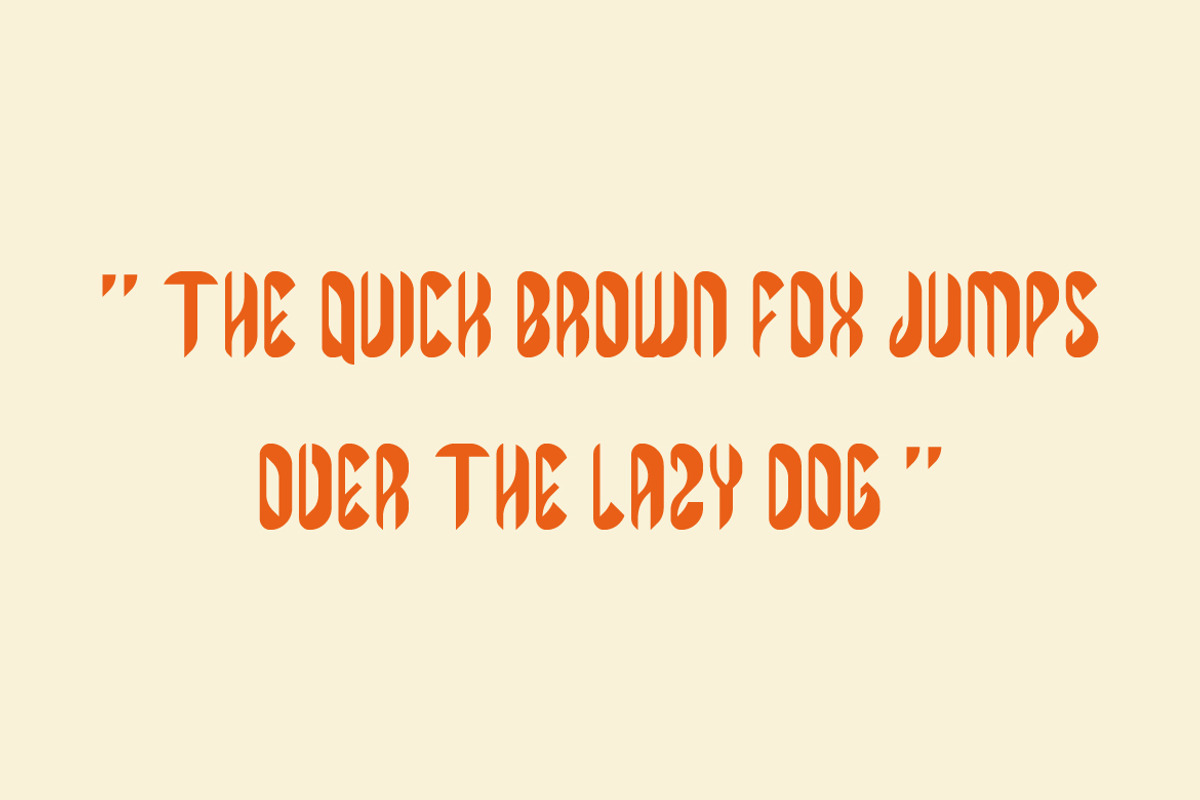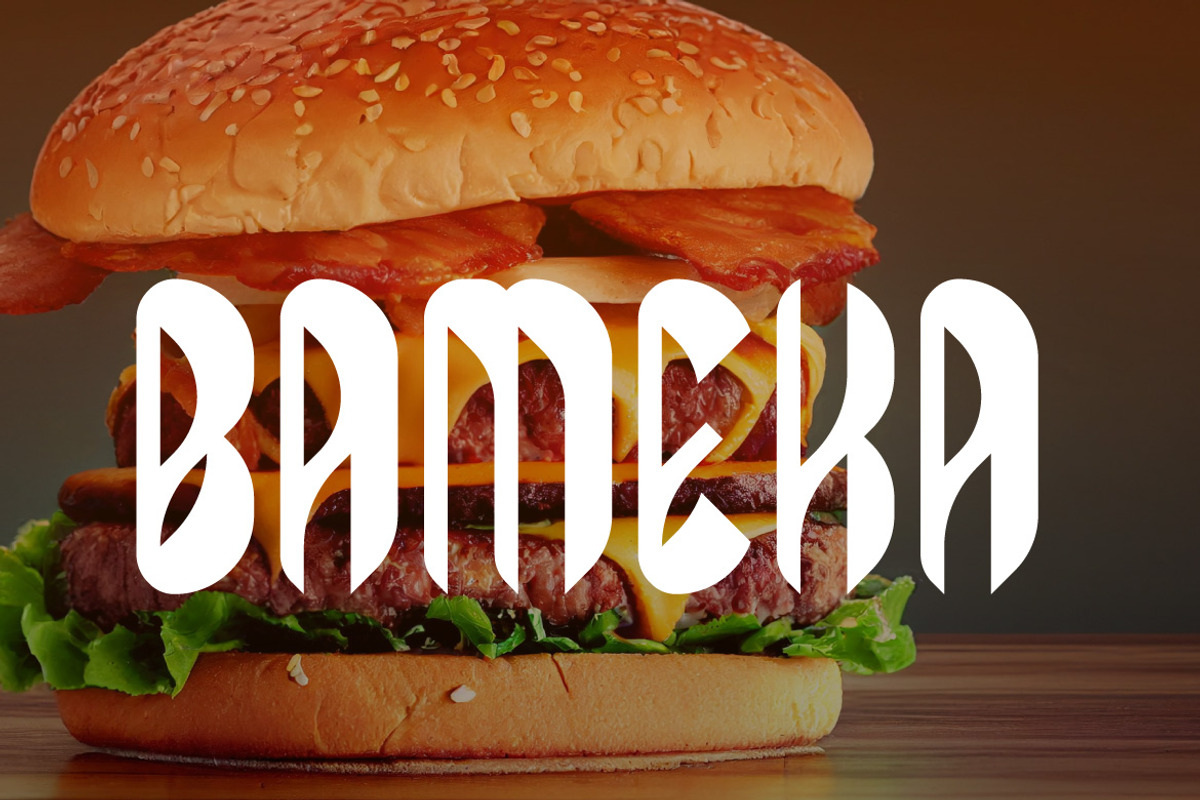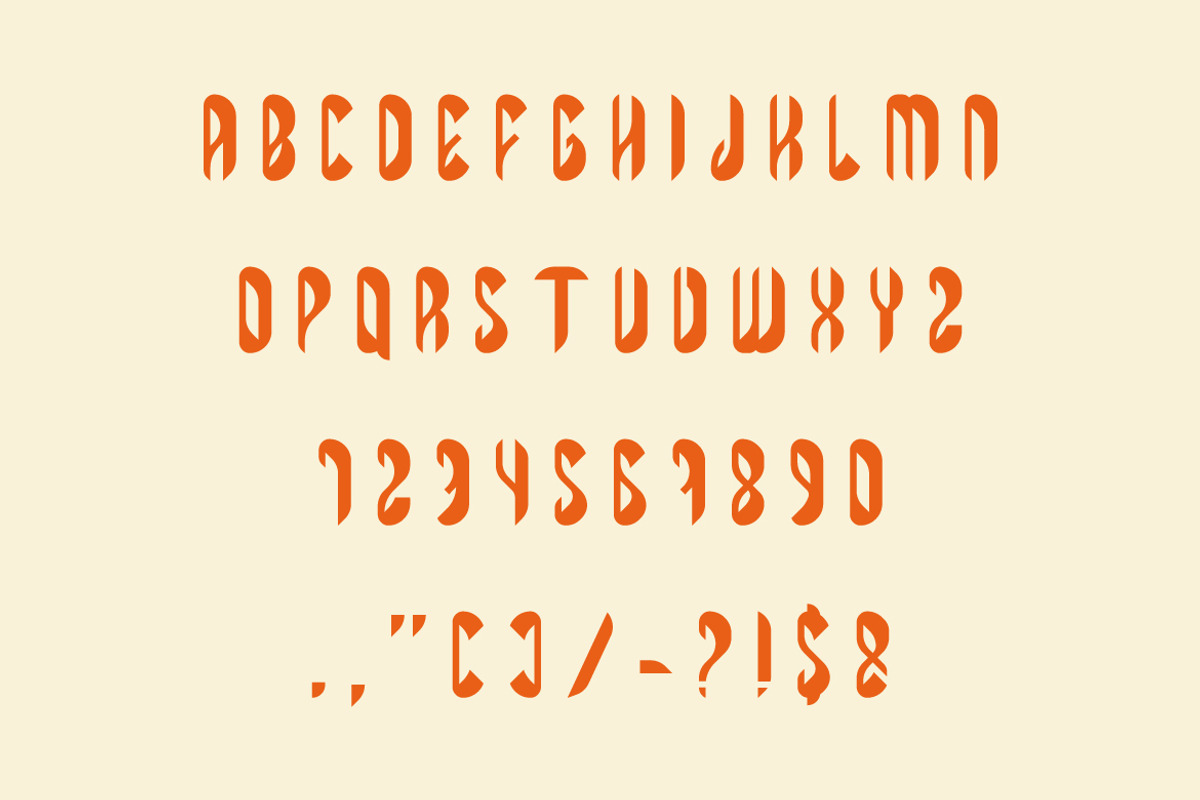
Bameka - Bold Logo Typeface
Bameka is a bold retro-inspired display typeface with modern geometric curves and sharp cuts that make every word stand out. Perfect for logos, posters, headlines, and branding, it blends vintage aesthetics with contemporary style. Its distinctive rhythm and confident letterforms give your designs a unique, creative personality.